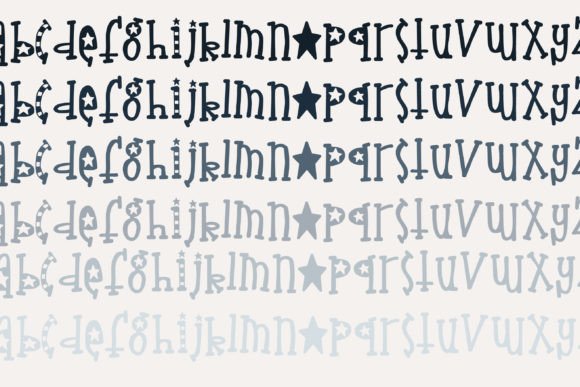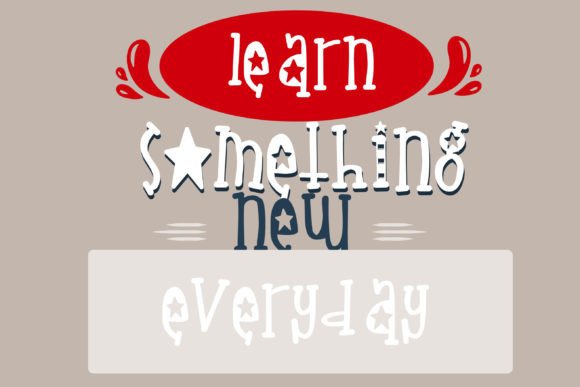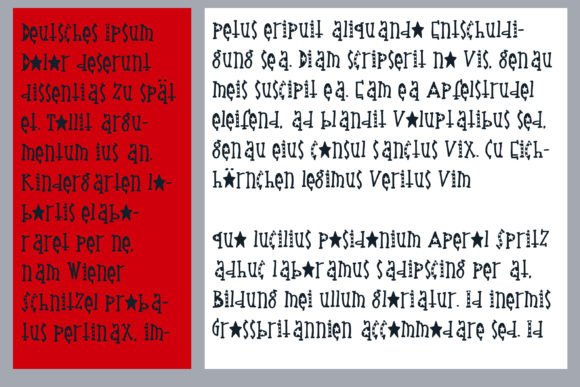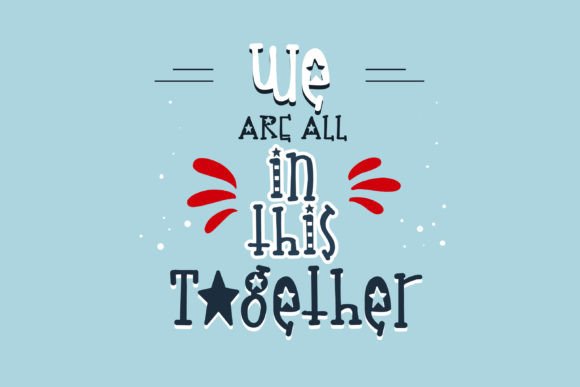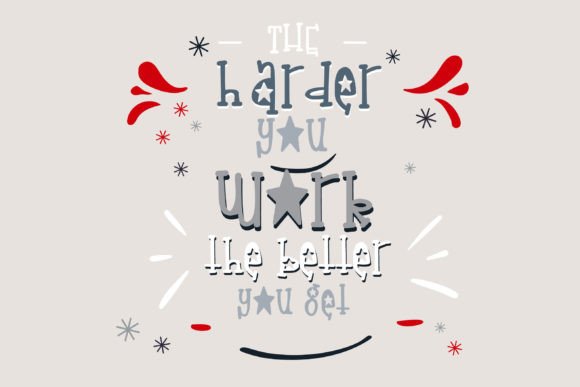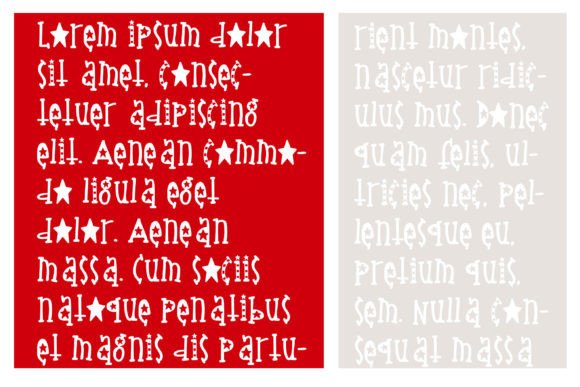
Introducing the American Star Font: A Whimsical and Patriotic Serif
The American Star Font is a unique, hand-crafted serif that embodies the spirit of patriotism and whimsy. This charming font features stars and stripes throughout, making it perfect for designers and crafters looking to add a touch of American charm to their projects. In this article, we’ll explore the characteristics, uses, and benefits of the American Star Font, as well as provide tips on how to make the most of this versatile typeface.
What Makes the American Star Font Special?
The American Star Font is a one-of-a-kind, hand-written serif that boasts a distinctive stars-and-stripes design. This eye-catching feature gives the font a playful, whimsical feel that’s perfect for projects that require a touch of patriotism or Americana charm. The font’s hand-crafted nature also lends it a personal, human touch that’s hard to replicate with more formal, machine-generated typefaces.
Uses for the American Star Font
The American Star Font is a versatile typeface that can be used for a wide range of purposes. Some popular uses for this font include:
- Invitations: The American Star Font is a natural fit for invitations, particularly those with a patriotic or celebratory theme. Whether you’re planning a 4th of July party or a wedding with an American theme, this font is sure to add a touch of whimsy and charm.
- Greeting Cards: The font’s playful, hand-written nature makes it perfect for greeting cards, especially those with a patriotic or festive theme.
- Crafting Projects: The American Star Font is a great choice for crafters who want to add a personal touch to their projects. Use it to create custom signs, banners, or other decorative items with a patriotic flair.
- Digital Designs: This font is also suitable for digital designs, such as social media graphics, blog headers, or website elements. Its unique, hand-crafted look will help your digital projects stand out from the crowd.
Benefits of Using the American Star Font
So why choose the American Star Font for your next project? Here are just a few benefits of using this charming typeface:
- Unique Look: The American Star Font boasts a truly unique look that’s sure to grab attention. Its hand-crafted, stars-and-stripes design sets it apart from more formal, generic typefaces.
- Versatility: This font is incredibly versatile, making it suitable for a wide range of projects and applications.
- Emotional Connection: The American Star Font’s whimsical, patriotic feel can help create an emotional connection with your audience. Use it to evoke feelings of nostalgia, patriotism, or celebration.
Tips for Using the American Star Font
To get the most out of the American Star Font, here are a few tips to keep in mind:
- Pair it with Neutrals: Balance out the font’s bold, patriotic look by pairing it with neutral colors like white, beige, or navy blue.
- Experiment with Sizes: Don’t be afraid to experiment with different font sizes to create visual interest. Use larger sizes for headings and smaller sizes for body text.
- Add Decorations: Take advantage of the font’s hand-crafted nature by adding decorations like stars, stripes, or other patriotic elements.
The American Star Font is a one-of-a-kind, hand-crafted serif that’s perfect for designers and crafters looking to add a touch of patriotism and whimsy to their projects. With its unique look, versatility, and emotional connection, this font is sure to become a favorite in your collection. Whether you’re creating invitations, greeting cards, or digital designs, the American Star Font is a great choice for any project that requires a little bit of American charm.